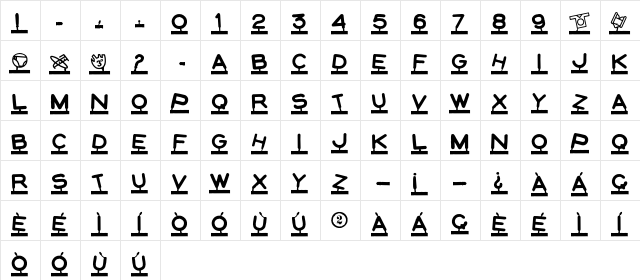
Montaplex Regular
Design Context for Montaplex Typeface
Montaplex offers clean, dependable letterforms without strong stylistic allegiance, making it a practical choice for designers who need flexibility.